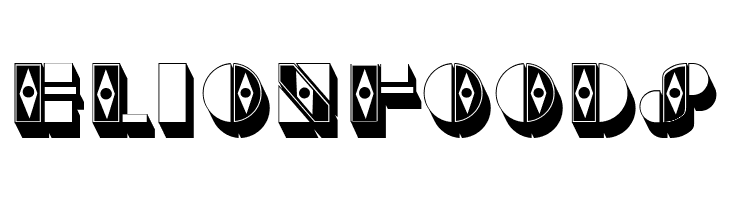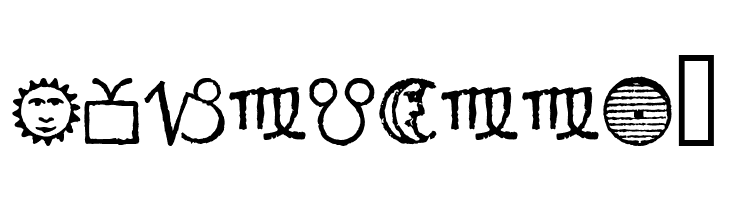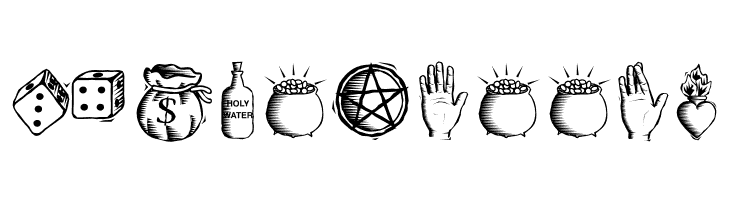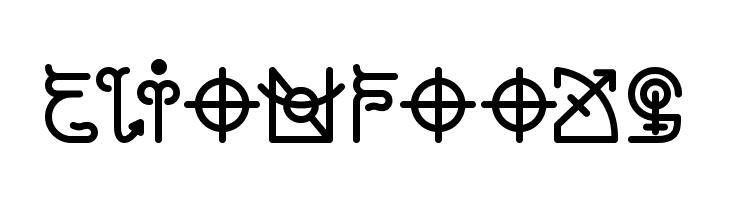
A bold, decorative symbol font with esoteric and mystical icons.
A collection of intricate, mystical symbols with esoteric and celestial motifs.
Hand-drawn, luck-themed icon font with detailed illustrations.
A decorative font with mystical and esoteric symbols, featuring bold lines and geometric shapes.
Ornate, hand-drawn esoteric symbol dingbats in a vintage tattoo style.
A symbolic, decorative font with alchemical and esoteric influences.
Decorative font with astrological and mystical illustrations.
A bold, decorative font with mystical geometric patterns and a three-dimensional shadow effect.